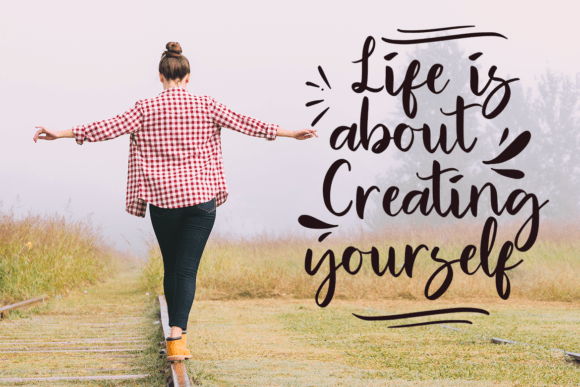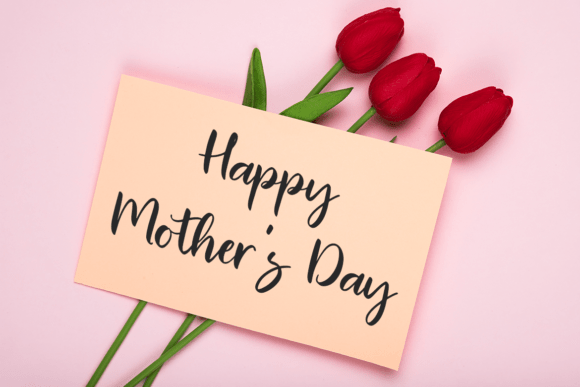
Freebie Wednesday: Roller Blow Font.
Roller Blow (by lyanatha) is an elegant and lovely handwritten font, created by using a brush pen. Clean and a little bit quirky, this font is the perfect fit for all of your logos, branding, social media, and crafty DIY projects. It’s free at Creative Fabrica for the next 5 days so be sure to check it out.